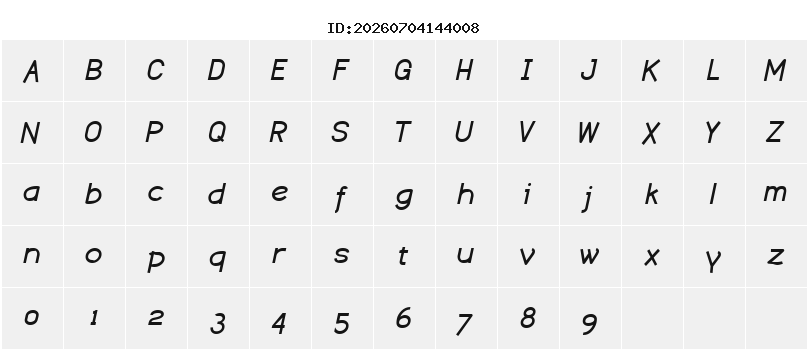
Dustismo Preview
• Font Name: Dustismo
• Font ID: DustinNorlander: Dustismo: 2002
• Full Font Name: Dustismo Bold Italic
• PostScript Name: DustismoBoldItalic
About Dustismo.ttf
Dustismo.ttf is a modern, elegant sans-serif font designed for ultimate readability and visual harmony. Perfect for branding, headlines, web design, and print materials.